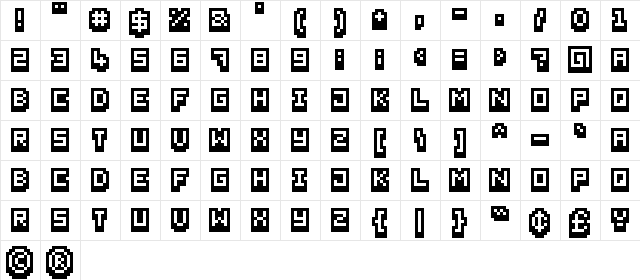
Pixel Bit Advanced Regular
Design Context for Pixel Bit Advanced Typeface
Pixel Bit Advanced is rooted in pixel-grid construction, making it a natural fit for game UI, retro computing aesthetics, and digital nostalgia projects.
Well-suited to indie game interfaces, retro computing aesthetics, and pixel art-adjacent design work.
Pro Tip: Use Pixel Bit Advanced at sizes that align with its pixel grid for the sharpest rendering — scaling to non-integer multiples can introduce unwanted blur.